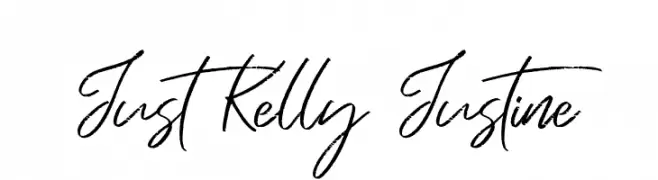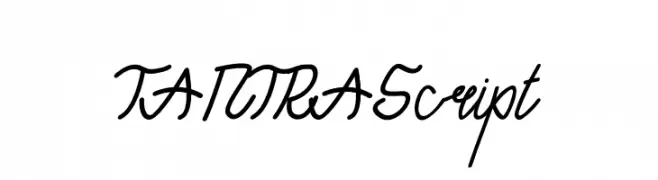
A playful, hand-drawn brushstroke font with a textured, sketch-like appearance.
A casual, handwritten font with an authentic, personal touch.
A casual, handwritten font with fluid strokes and a personal touch.
A casual, handwritten font with fluid, organic strokes and a personal touch.
A classic serif font with bold, elegant serifs and a modern touch.
A modern serif font with sharp angles and geometric shapes.
A casual, handwritten font with a personal and authentic touch.
A lively, cursive handwritten font with fluid strokes and a personal touch.
A dynamic, script-like font with fluid, interconnected letters and a personal touch.